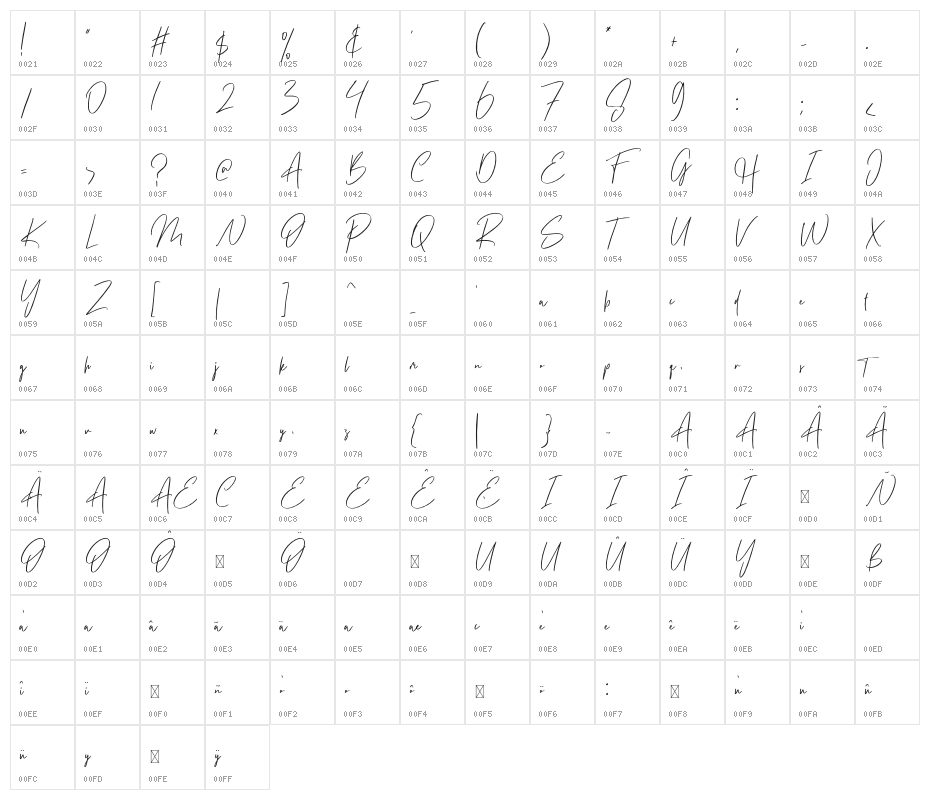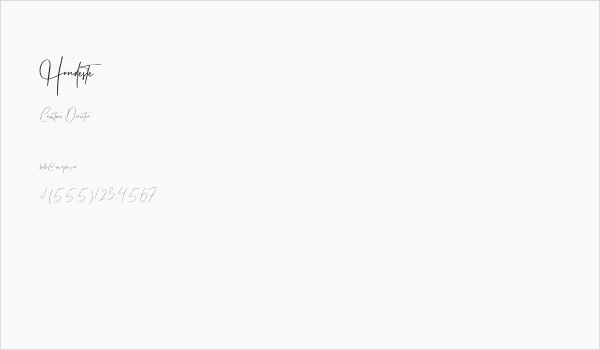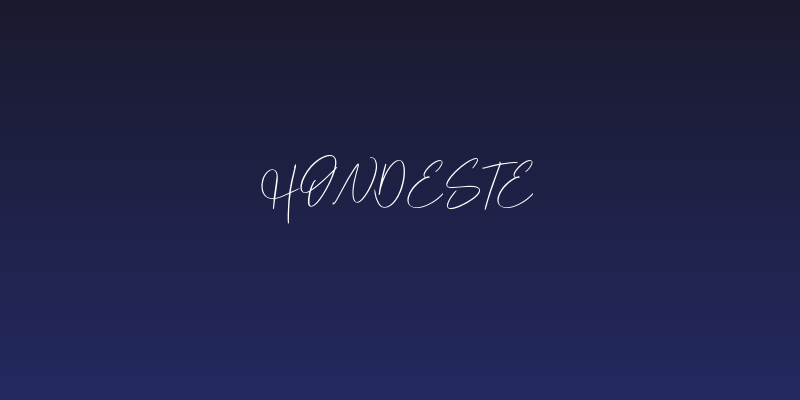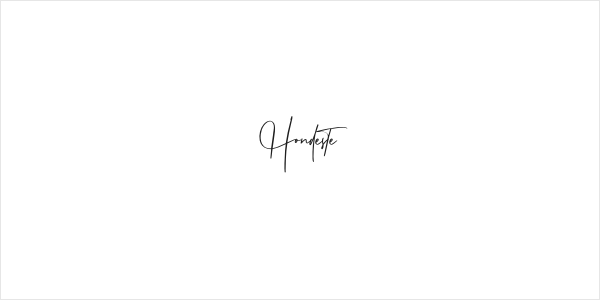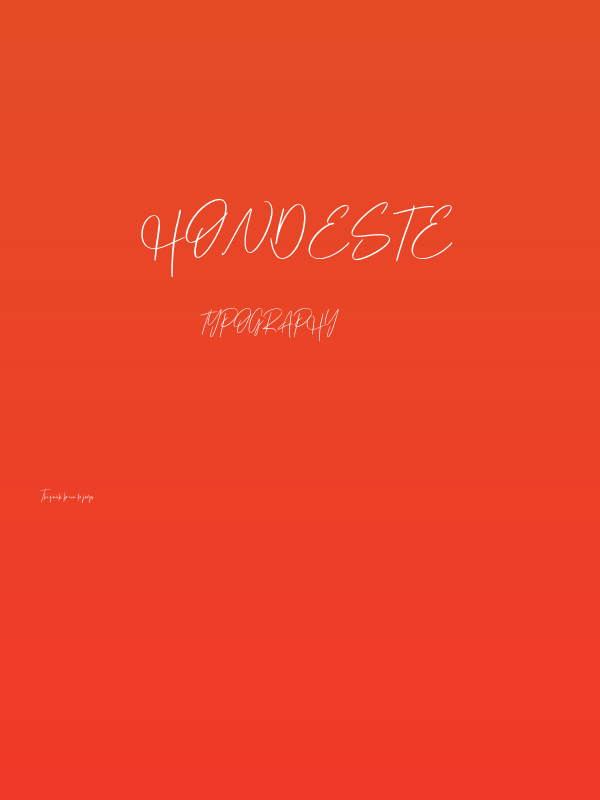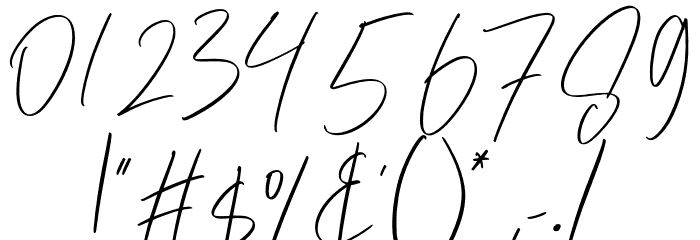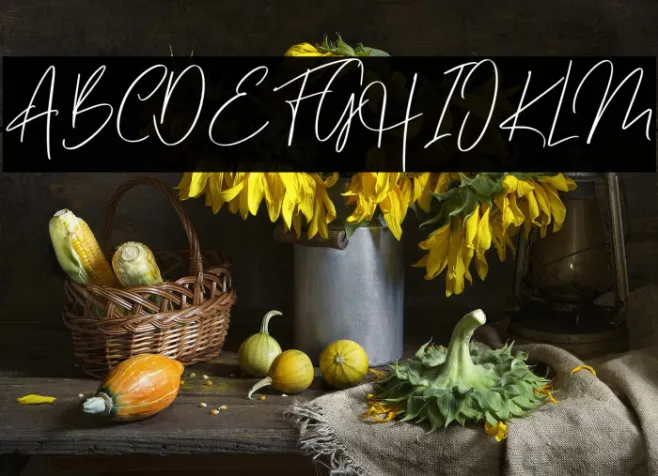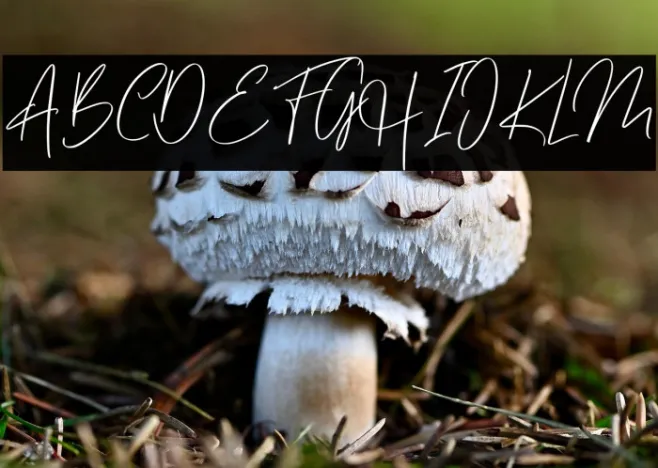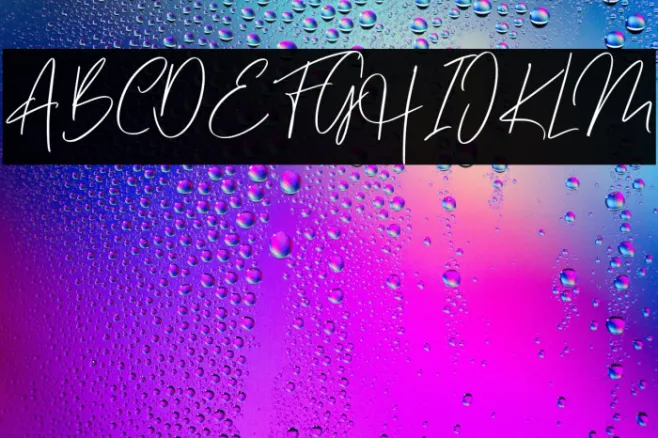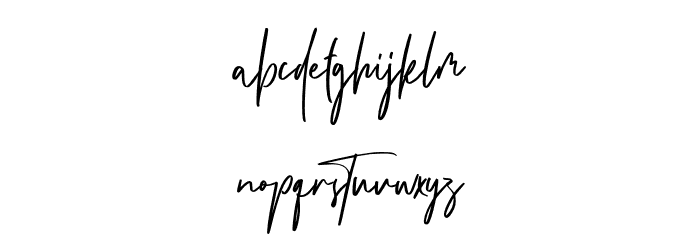
Hondeste Font
Hondeste Description
This font features a dynamic and fluid handwritten style, characterized by its elegant and flowing strokes. The letters are connected in a cursive manner, giving it a natural and personal touch. The uppercase letters are bold and expressive, while the lowercase letters maintain a consistent flow, enhancing readability. The numerals and special characters are crafted with the same attention to detail, ensuring a cohesive look across all elements. This font exudes a sense of sophistication and creativity, making it suitable for various artistic and professional applications.
| Proposed Projects | Ideal for wedding invitations, personal branding, greeting cards, and artistic projects. |